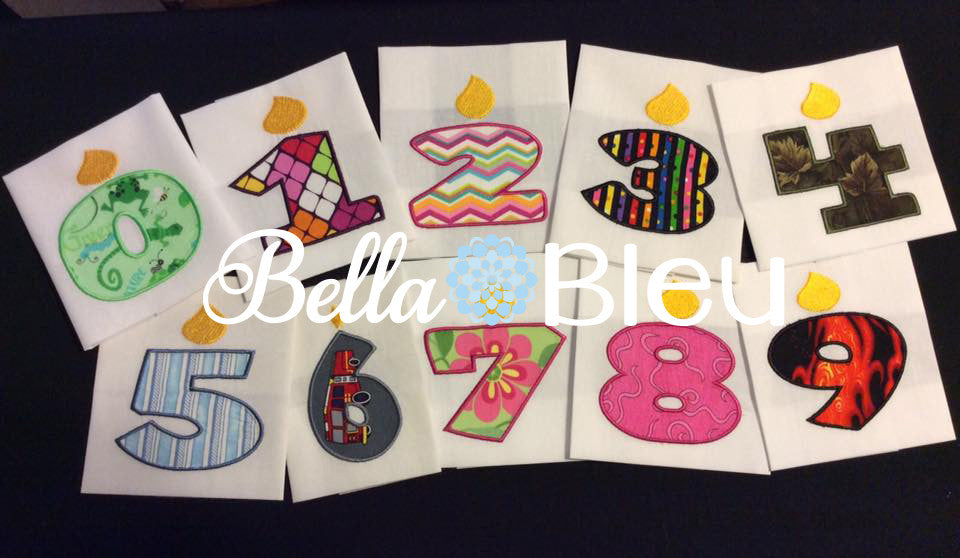
Birthday Candle Candles Numbers Font Machine Applique Embroidery design
This listing is for a set of Numbers with Candles on top from 0-9 machine embroidery design